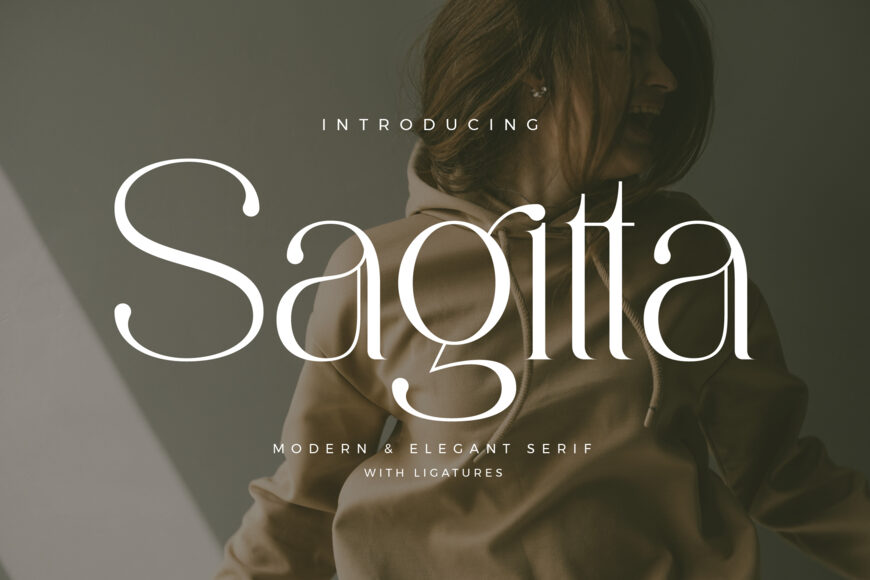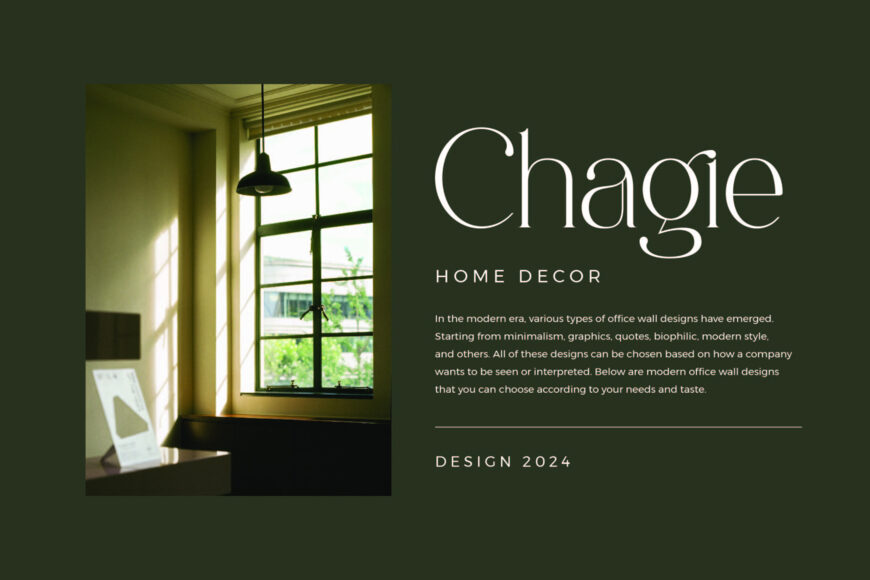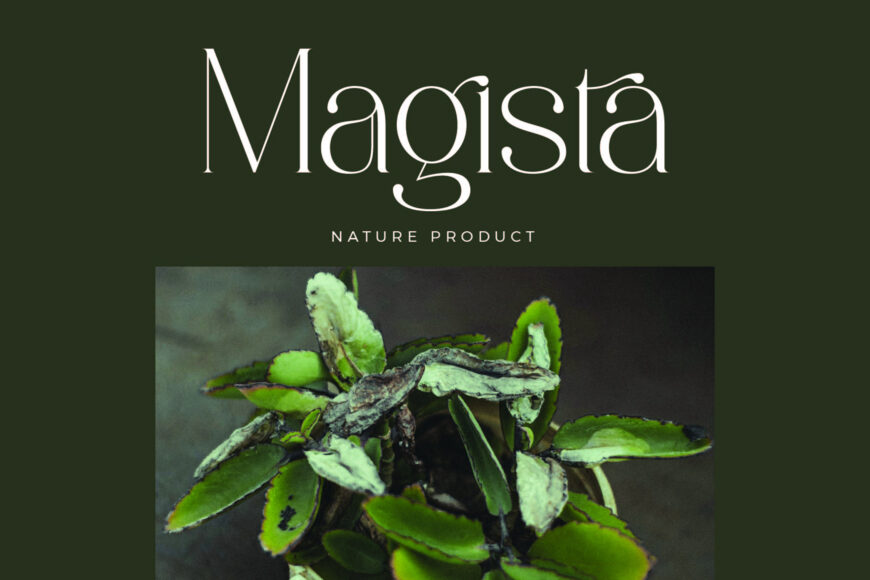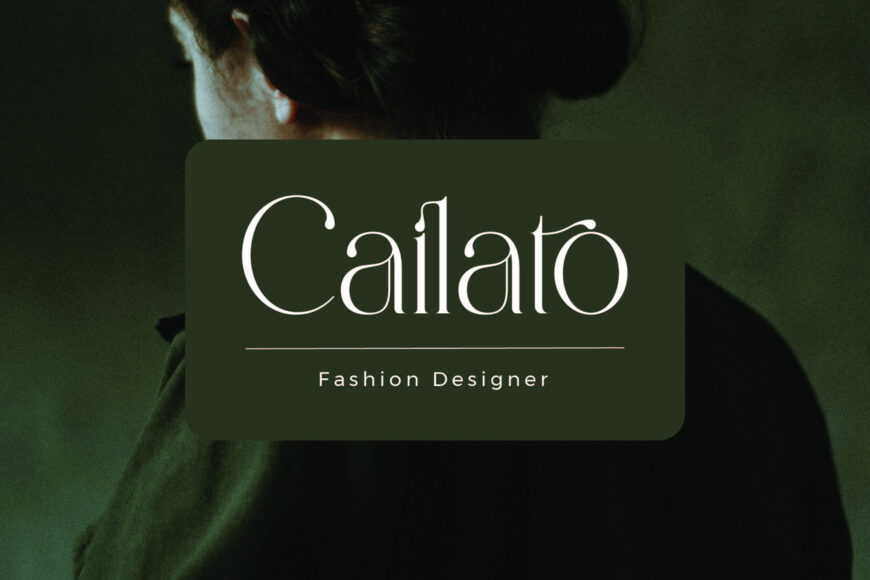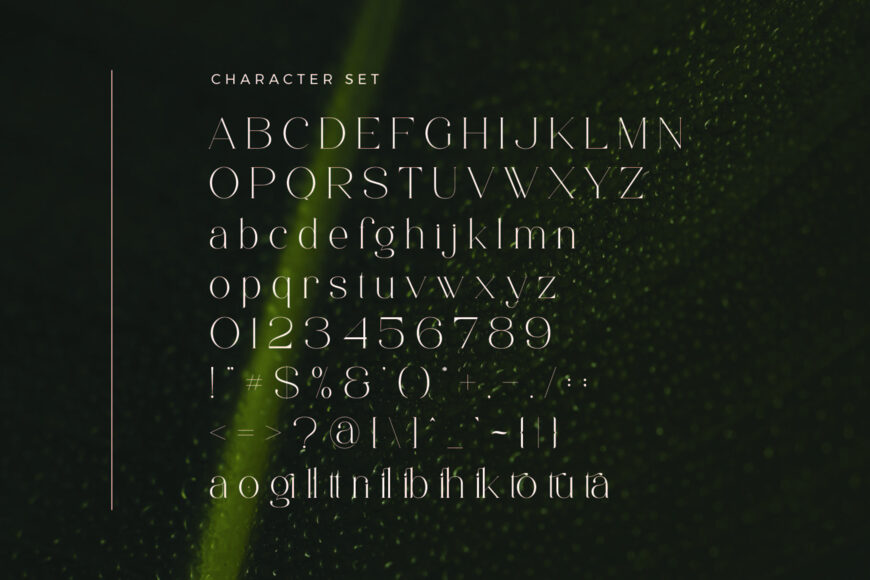
Sagitta Font
Sagitta is an elegant sans serif typeface inspired by minimalist logo design. It’s ideal for templates, brochures, videos, advertisements, branding, logos, invitations, layouts, sophisticated crafts, beauty projects, and more.